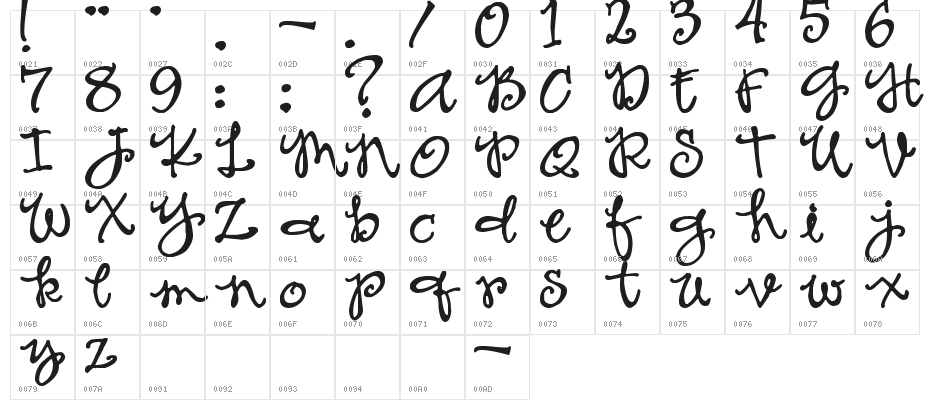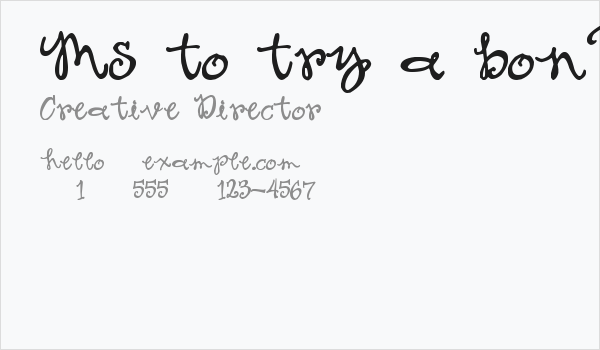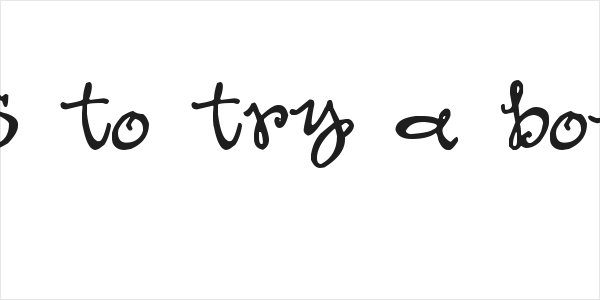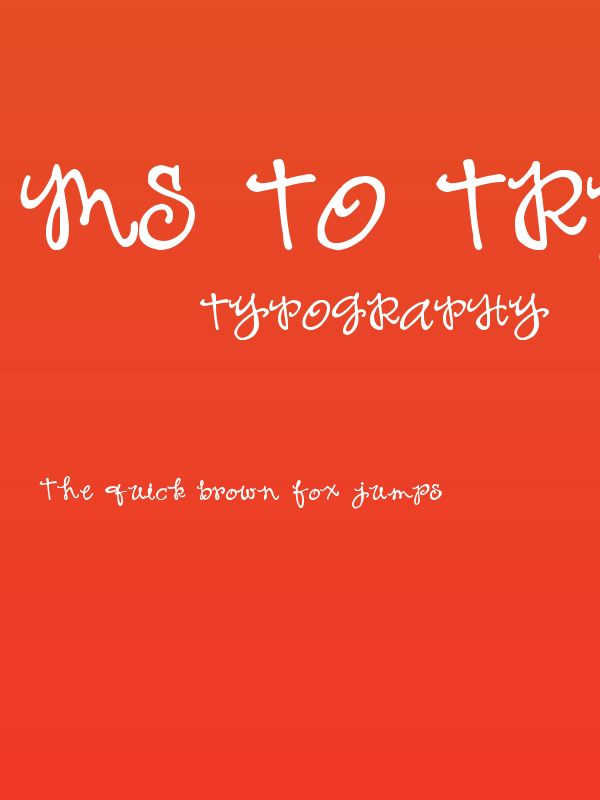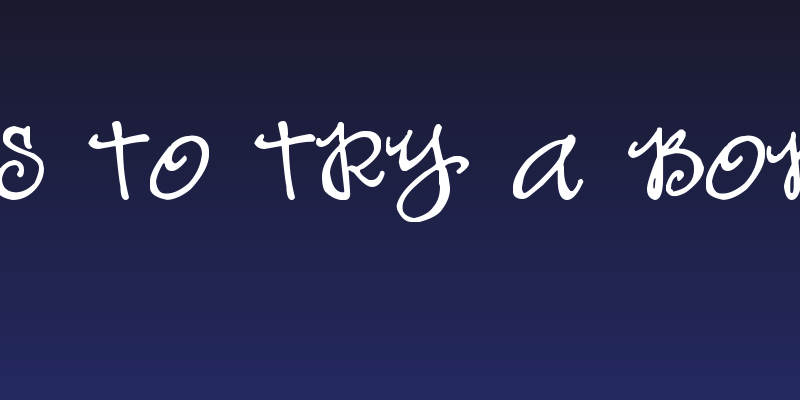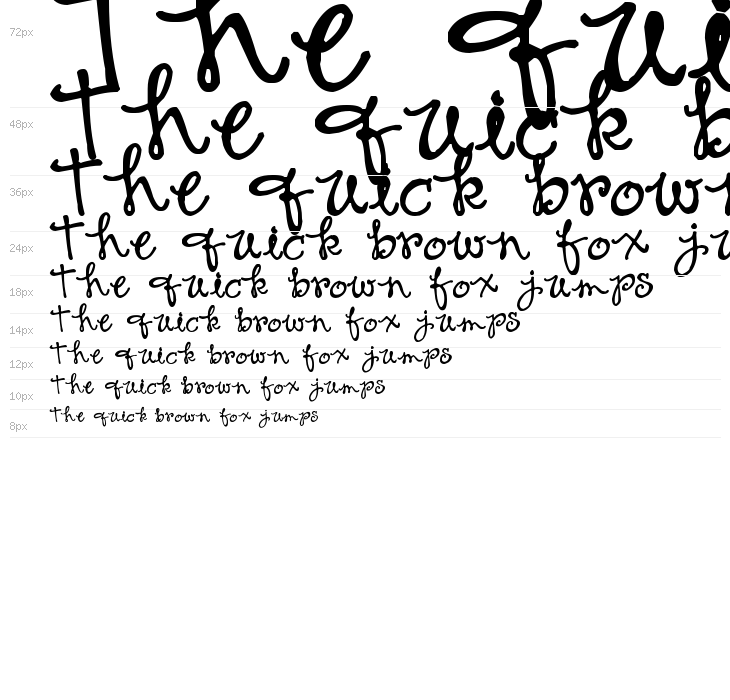
Ms to try a bon? Font
Ms to try a bon? Description
This font features a playful and whimsical script style, characterized by its fluid and flowing letterforms. The uppercase and lowercase letters maintain a consistent, hand-drawn appearance, with each character exhibiting unique loops and curves that add to its charm. The numerals are bold and slightly exaggerated, complementing the overall playful aesthetic. Special characters are creatively integrated, maintaining the font's cohesive style. The font's organic and informal nature makes it ideal for projects that require a personal touch or a sense of fun and creativity.
| Proposed Projects | Ideal for greeting cards, invitations, children's books, and creative branding projects. |